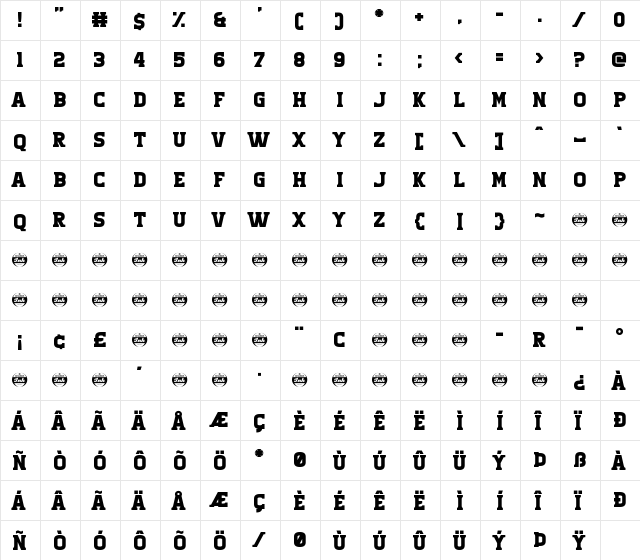
Milletun Regular
| Designer | Allison James |
Design Context for Milletun Typeface
Milletun is a composed and adaptable typeface that performs quietly and consistently across a wide range of design contexts.